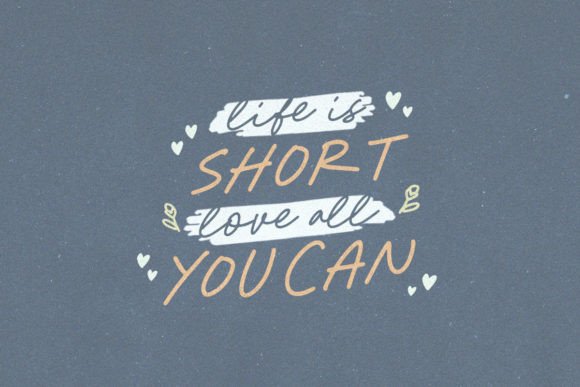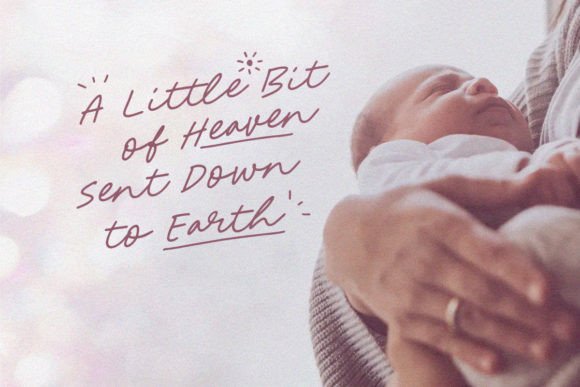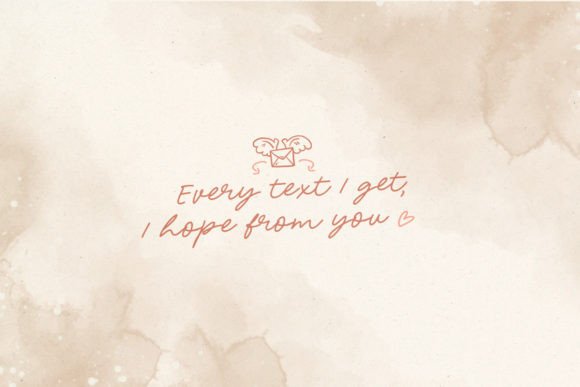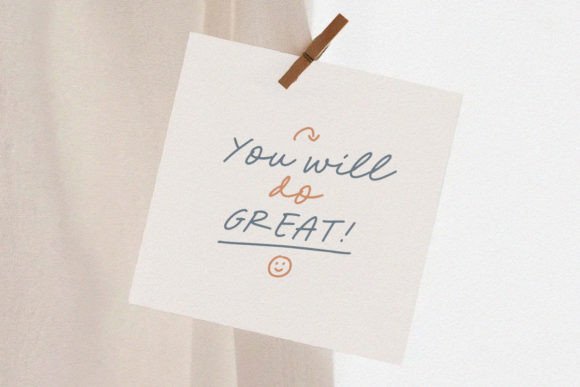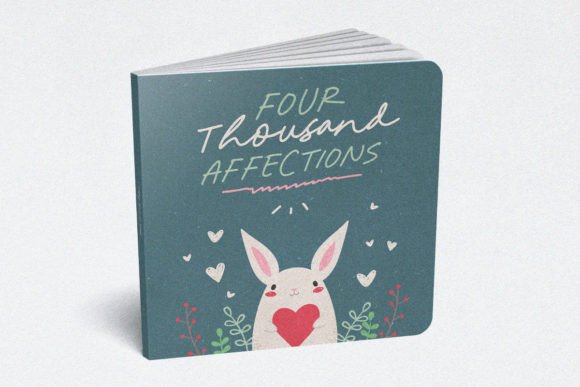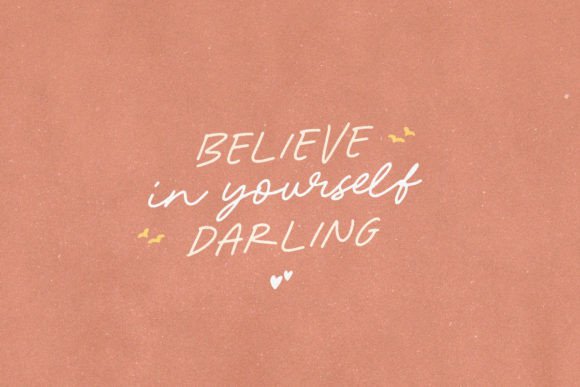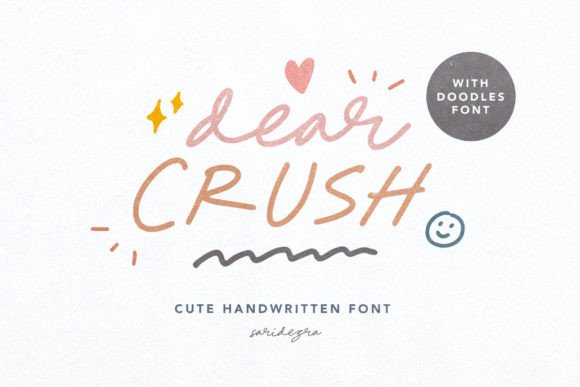
Discover the Charm of Dear Crush Font: A Perfect Choice for Romantic Designs
Are you a designer or crafter looking for a font that captures the essence of love and charm? Look no further than Dear Crush Font, a beautiful and romantic typeface that is sure to make your designs stand out. In this article, we’ll explore the features and benefits of Dear Crush Font, and why it’s the perfect choice for wedding invitations, love letters, and other designs that require a touch of intimacy and warmth.
The Characteristics of Dear Crush Font
Dear Crush Font is a carefully crafted typeface that exudes a sense of sweetness and romance. Its letters are designed with delicate curves and elegant strokes that create a sense of grace and tenderness. The font’s sweet and romantic appearance makes it perfect for designs that require a touch of intimacy and warmth. Whether you’re creating a wedding invitation, a love letter, or a romantic poster, Dear Crush Font is sure to add a touch of magic to your design.
Why Choose Dear Crush Font?
So why choose Dear Crush Font over other fonts? Here are just a few reasons why this font stands out:
- Unique and Eye-Catching: Dear Crush Font is a unique and eye-catching typeface that is sure to grab attention. Its delicate curves and elegant strokes make it a standout font that will set your designs apart from the rest.
- Perfect for Romantic Designs: As mentioned earlier, Dear Crush Font is perfect for romantic designs such as wedding invitations, love letters, and posters. Its sweet and romantic appearance makes it a great choice for any design that requires a touch of intimacy and warmth.
- Easy to Read: Despite its delicate and cursive appearance, Dear Crush Font is easy to read and understand. This makes it a great choice for designs that require a lot of text, such as love letters or romantic posters.
- Versatile: Dear Crush Font is a versatile typeface that can be used in a variety of designs, from digital to print. Whether you’re creating a wedding invitation or a romantic poster, this font is sure to add a touch of elegance and sophistication.
How to Use Dear Crush Font in Your Designs
Using Dear Crush Font in your designs is easy. Here are a few tips to get you started:
- Pair it with Other Fonts: Dear Crush Font can be paired with other fonts to create a unique and interesting design. Try pairing it with a bold font for a romantic poster or with a simple font for a wedding invitation.
- Use it for Headings and Titles: Dear Crush Font is perfect for headings and titles, where its delicate curves and elegant strokes can really shine. Try using it for the title of a romantic poster or for the heading of a love letter.
- Experiment with Colors: Dear Crush Font looks great in a variety of colors, from soft pastels to bold and bright colors. Experiment with different colors to find the one that works best for your design.
Dear Crush Font is a beautiful and romantic typeface that is perfect for designers and crafters looking to add a touch of intimacy and warmth to their designs. Its delicate curves and elegant strokes make it a standout font that is sure to grab attention. Whether you’re creating a wedding invitation, a love letter, or a romantic poster, Dear Crush Font is a great choice. So why not give it a try and see how it can add a touch of magic to your designs?
Key Features of Dear Crush Font
- Delicate curves and elegant strokes
- Sweet and romantic appearance
- Perfect for wedding invitations, love letters, and romantic designs
- Versatile and can be used in a variety of designs
Overall, Dear Crush Font is a great choice for designers and crafters looking to add a touch of romance and intimacy to their designs. Its unique and eye-catching appearance makes it a standout font that is sure to grab attention. So why not give it a try and see how it can add a touch of magic to your designs?